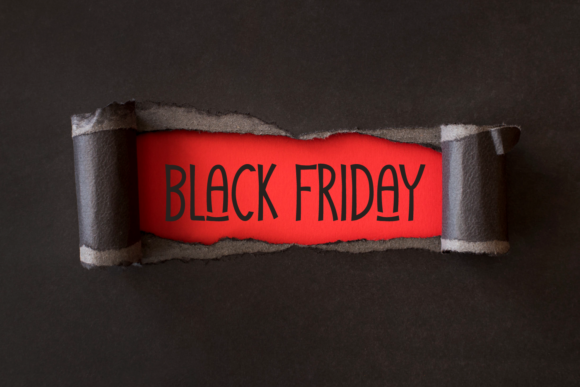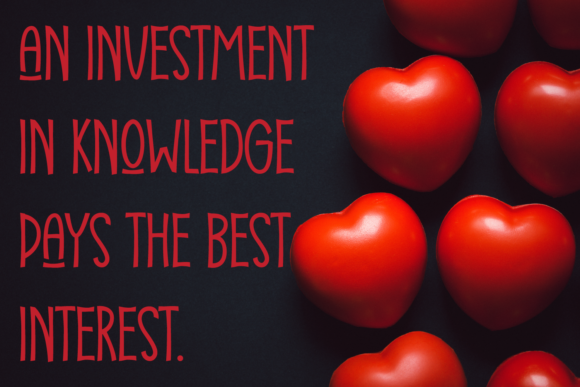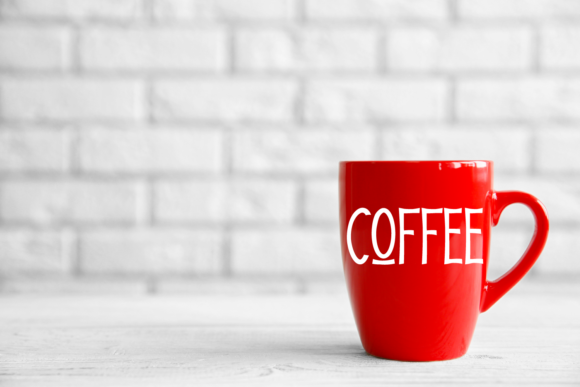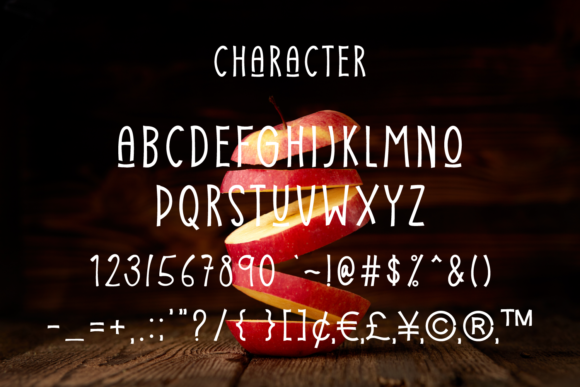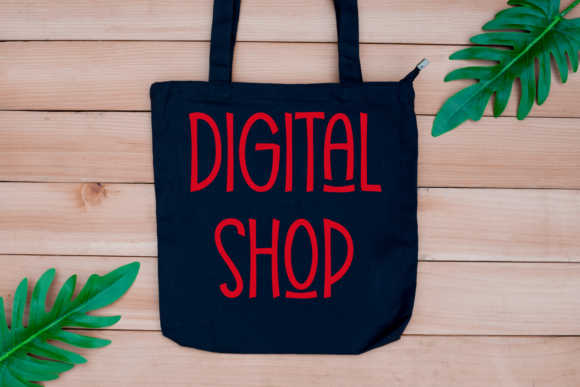
The Perfect Design Element: Unveiling the Apple Mandala Font
Have you ever been brainstorming a new design project and suddenly, a spark of creativity hits you? Maybe it’s a quirky font that catches your eye, or a color combination that just feels right. For designers, those moments of inspiration can be the difference between a good design and a great one. And that’s exactly what happened when the Apple Mandala Font came onto the scene.
This unique display font is all about making a statement. With its tall and quirky style, it’s perfect for designs that need a bit of personality – think t-shirts, sportswear, logos, and advertisements. Whether you’re a seasoned designer or just starting out, the Apple Mandala Font is an invaluable tool to have in your toolkit.
Apple Mandala Font Key Features
- Font Family: Apple Mandala is a sans-serif font family.
- Size: The font family includes multiple weights, ranging from Thin to Black, each with its own unique characteristics.
- Resolution: Designed for high-resolution displays, making it suitable for use in digital applications.
- Unique Characteristics: Apple Mandala features a unique blend of geometric and organic elements, giving it a distinctive and modern look.
- Kerning and Ligatures: The font includes advanced kerning and ligature pairs, ensuring smooth and natural-looking text.
Apple Mandala Font Review
Overall, I think the Apple Mandala Font is a beautiful and unique addition to any design project. ✨ It’s perfect for creating a whimsical and mystical atmosphere, and the intricate details really make it stand out. The font is versatile and can be used for a variety of purposes, from branding to packaging to digital design.
One of the things I love most about Apple Mandala is its flexibility. ✨ It comes in a range of styles and weights, making it easy to adapt to different design contexts. The font is also highly customizable, allowing you to adjust the spacing, size, and color to suit your needs.
While Apple Mandala is a great font, there are a few limitations to be aware of. ⚠️ One of the main issues is that it can be difficult to read at small sizes, making it less suitable for body text or other large blocks of text. Additionally, the font may not be compatible with all operating systems or devices, which could lead to display issues.
- Unique and intricate design
- Flexible and customizable
- Available in a range of styles and weights
- Perfect for creating a whimsical and mystical atmosphere
- Not suitable for small text sizes or large blocks of text
- May not be compatible with all operating systems or devices
The Apple Mandala Font is ideal for:
- Party decorations and signage
- Graphic design and branding
- DIY projects and crafts
For the best results, use the font in conjunction with bright, bold colors and intricate graphics.
Alex Brush is a calligraphic script font with a personal touch, ideal for designs that require a sense of warmth and approachability. It is more delicate than Apple Mandala Font and can be used for projects like blog headers, quotes, and social media graphics.
Ostrich Sans is a sans-serif font with a unique, modern feel, suitable for designs that need a clean and minimal look. It is more versatile and easy to read than Apple Mandala Font, making it ideal for applications like web design, digital products, and corporate branding.